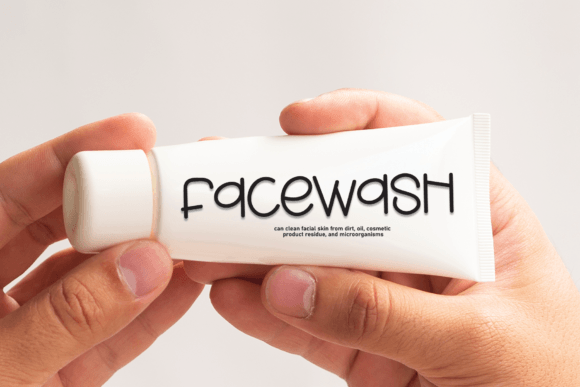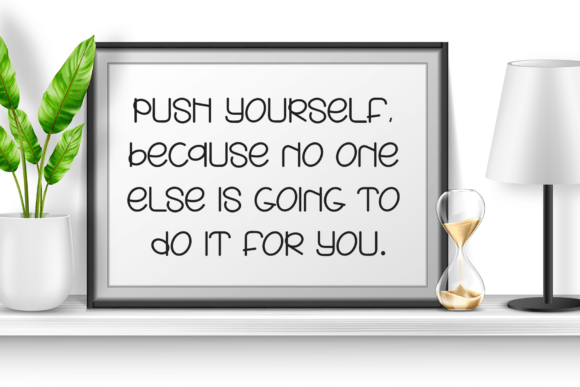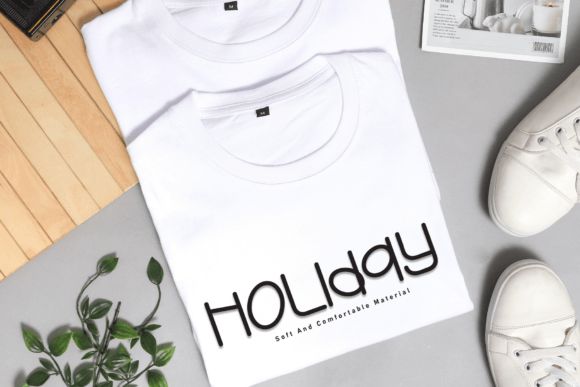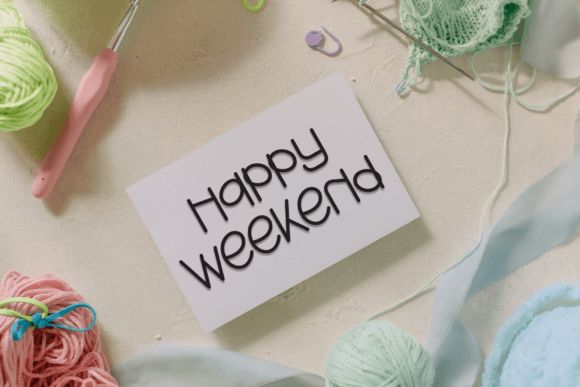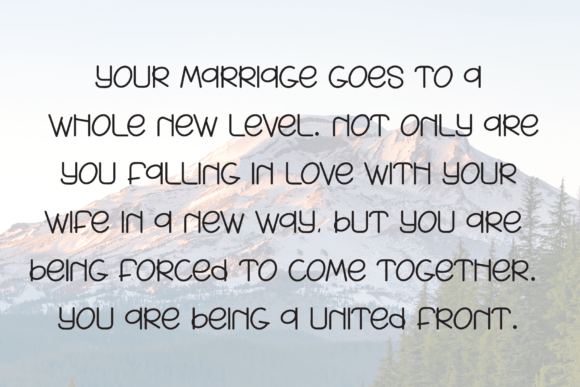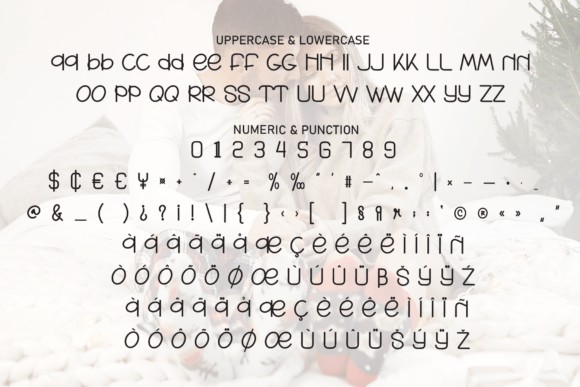
Introducing the Christmas Romantic Font: A Delightful Addition to Your Design Toolbox
Are you looking for a font that captures the essence of playful fun and whimsy? Do you want to add a touch of sweetness and amicability to your designs? Look no further than the Christmas Romantic Font, a charming handwritten display font that’s perfect for infusing your crafts with a dash of vivacity.
Amiable Typography for Every Occasion
This delightful font is designed to bring a sense of playfulness and fun to your designs. Whether you’re creating romantic wedding invitations, heartfelt cards, or festive holiday crafts, the Christmas Romantic Font is the perfect choice. Its endearing touch of whimsy and sweetness makes it an ideal addition to any design project.
As a designer or crafter, you’re always on the lookout for unique and versatile fonts to add to your toolbox. The Christmas Romantic Font is a beautifully crafted font that’s sure to become a favorite. Its handwritten display style gives it a personal and intimate feel, making it perfect for a wide range of design projects.
Capture the Essence of the Holiday Season
The Christmas Romantic Font is especially perfect for holiday designs. Its festive and playful style captures the essence of the holiday season, making it ideal for creating Christmas cards, invitations, and decorations. Whether you’re designing for personal use or for clients, this font is sure to add a touch of magic to your creations.
Why Choose the Christmas Romantic Font?
- Unique and Versatile: The Christmas Romantic Font is a one-of-a-kind font that’s perfect for a wide range of design projects.
- Handwritten Display Style: Its handwritten display style gives it a personal and intimate feel that’s perfect for romantic and festive designs.
- Playful and Whimsical: This font captures the essence of playful fun and whimsy, making it perfect for adding a touch of sweetness to your designs.
Add a Touch of Magic to Your Designs
With the Christmas Romantic Font, you can add a touch of magic to your designs. Its delightful style is sure to capture the hearts of your audience, making your designs stand out from the crowd. Whether you’re designing for personal use or for clients, this font is sure to become a favorite.
Tips for Using the Christmas Romantic Font
- Pair it with Other Fonts: Experiment with pairing the Christmas Romantic Font with other fonts to create a unique and eye-catching design.
- Use it for Headings: The Christmas Romantic Font is perfect for headings and titles, adding a touch of whimsy and playfulness to your designs.
- Add Decorations: Consider adding decorations and graphics to your design to enhance the festive and playful style of the font.
The Christmas Romantic Font is a delightful addition to any design toolbox. Its playful and whimsical style captures the essence of the holiday season, making it perfect for a wide range of design projects. With its easy-to-use style and unique handwritten display font, it’s sure to become a favorite among designers and crafters. Add this beautifully crafted font to your toolbox today and let the magic unfold!